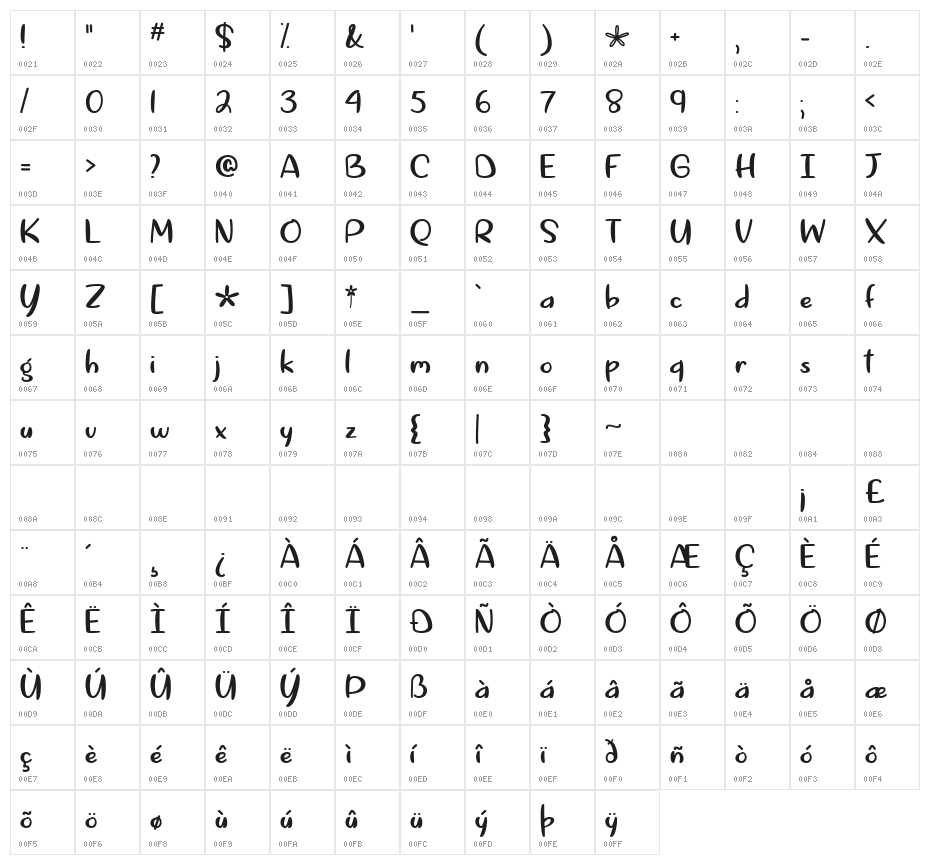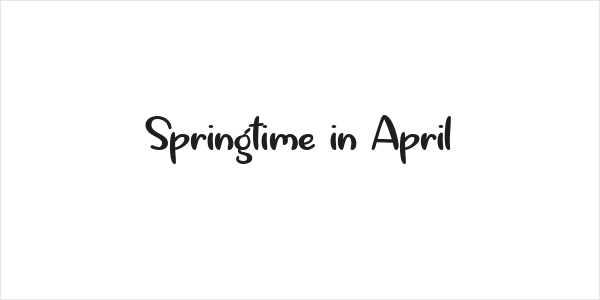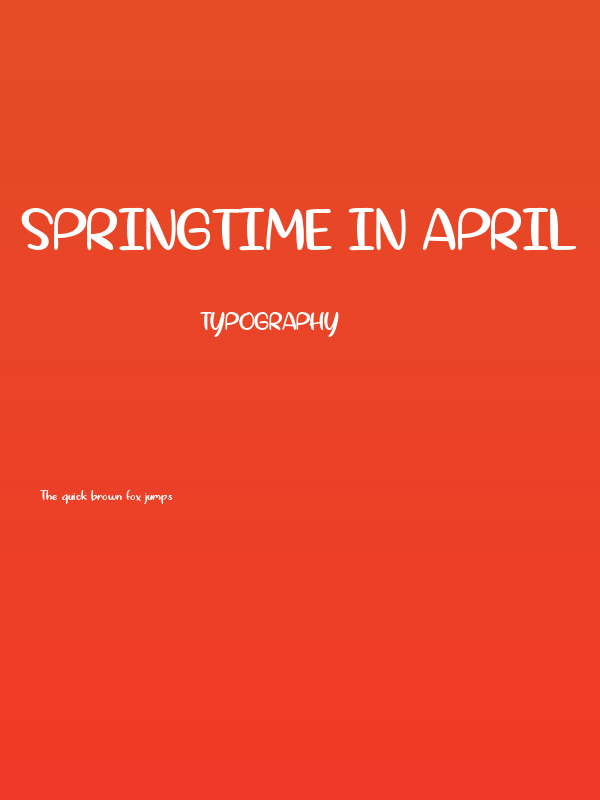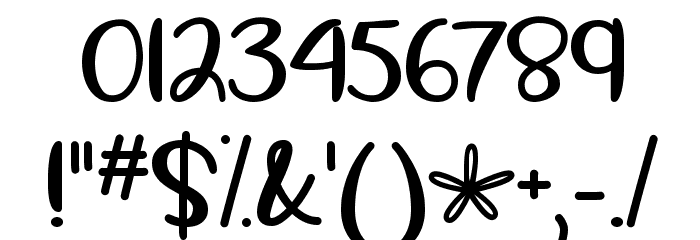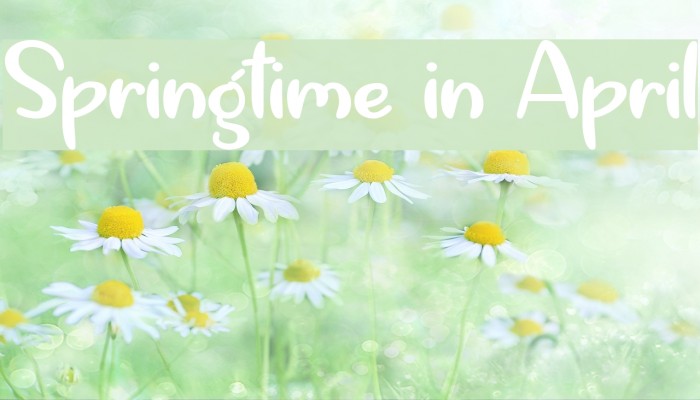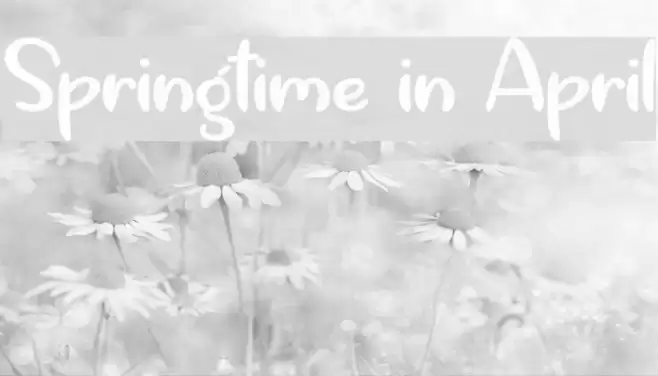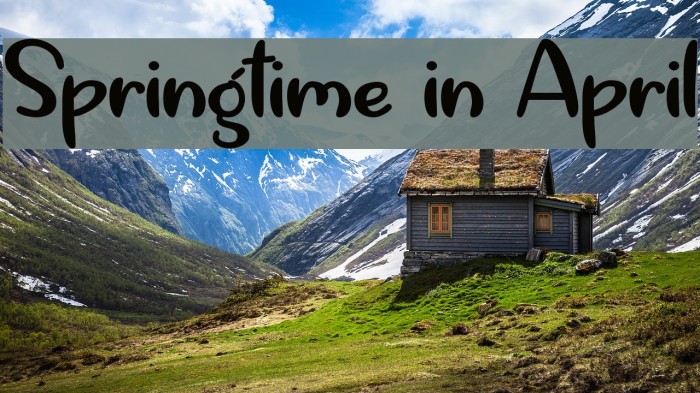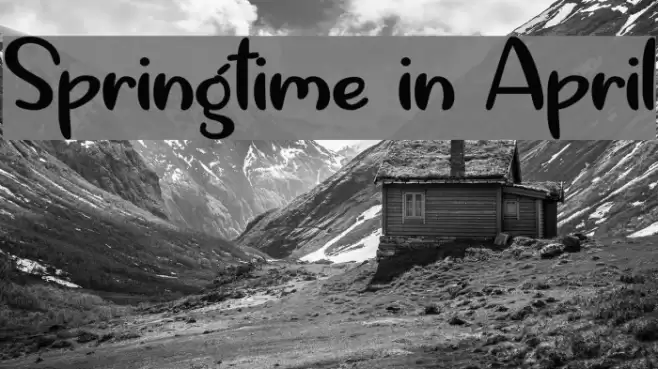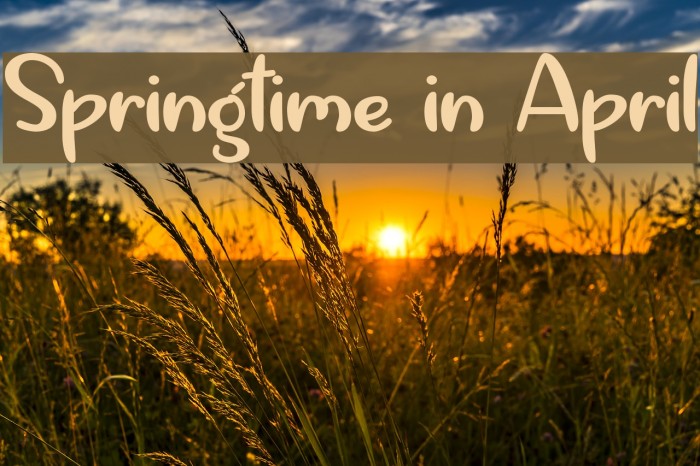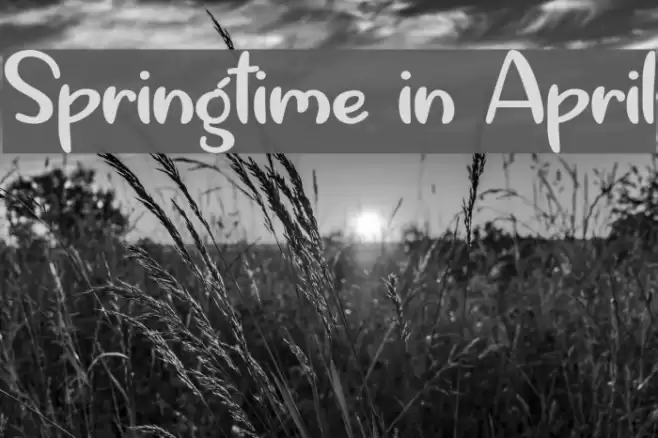
Springtime in April Font
Springtime in April Description
This playful and whimsical font features a handwritten style with a casual and friendly appearance. The letters are rounded and slightly irregular, giving it a natural and organic feel. The uppercase and lowercase characters maintain a consistent flow, while the numbers and special characters complement the overall design. The strokes are moderately thick, providing good readability while retaining a fun and informal vibe. This font is perfect for projects that require a touch of personality and charm, making it ideal for creative and lighthearted applications.
| Overall Style | Casual |
| Use Case | Headlines, Logos, Informal text |
| Proposed Projects | Greeting cards, children's books, playful branding, social media graphics, and casual invitations. |